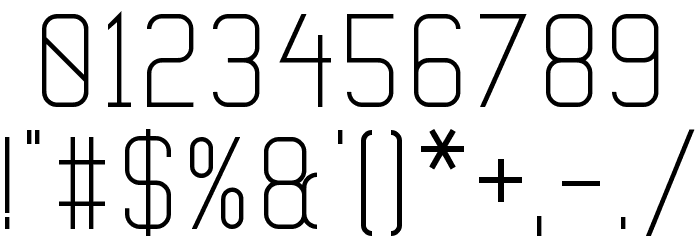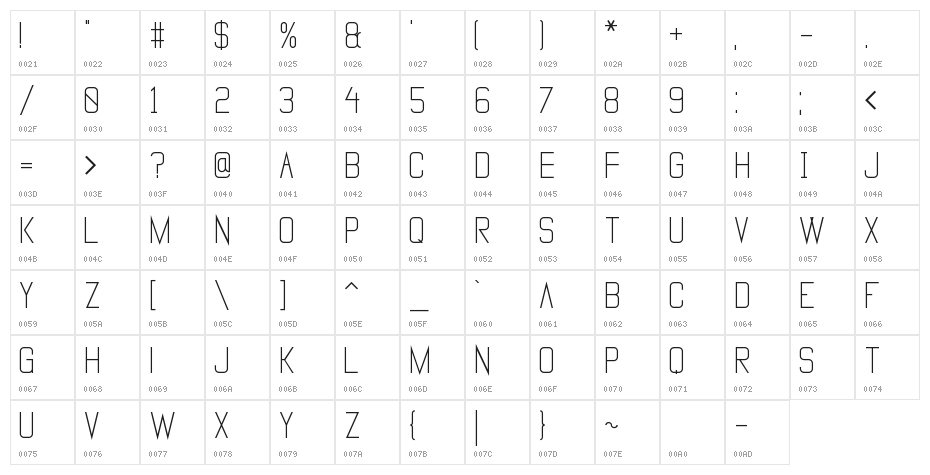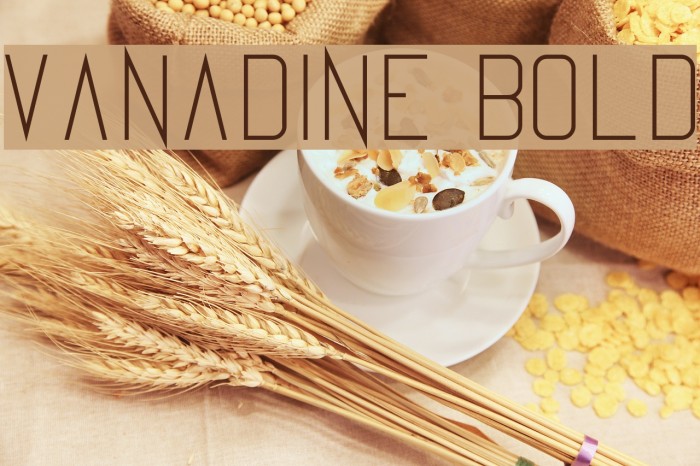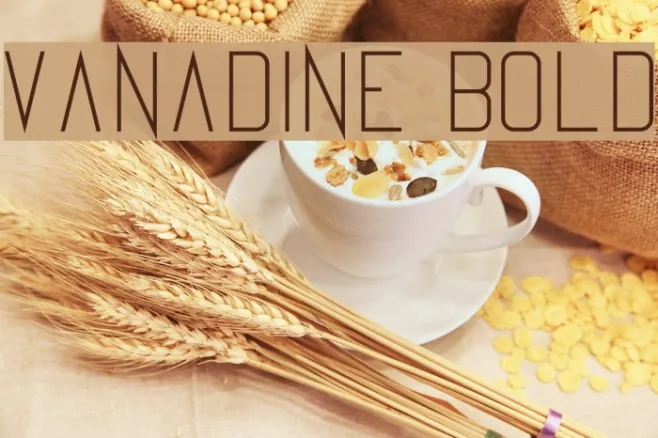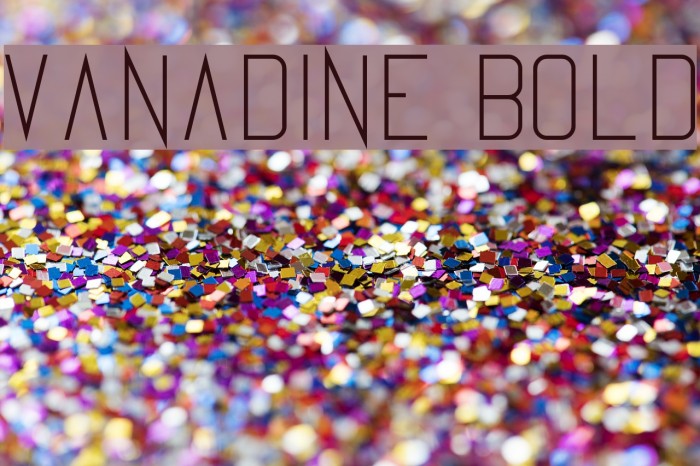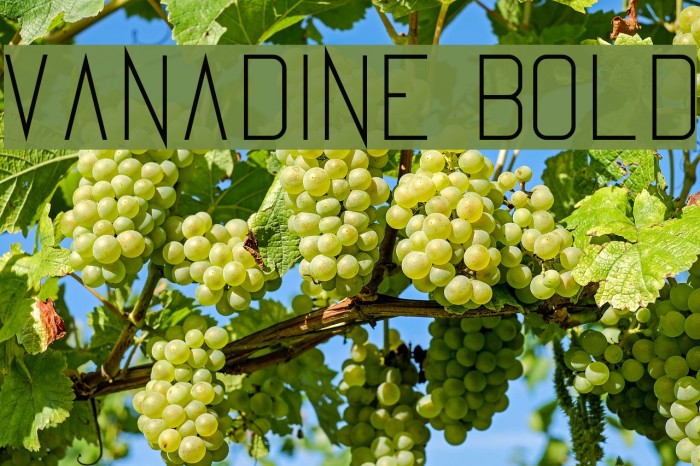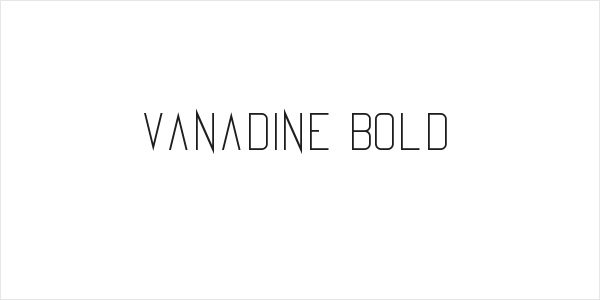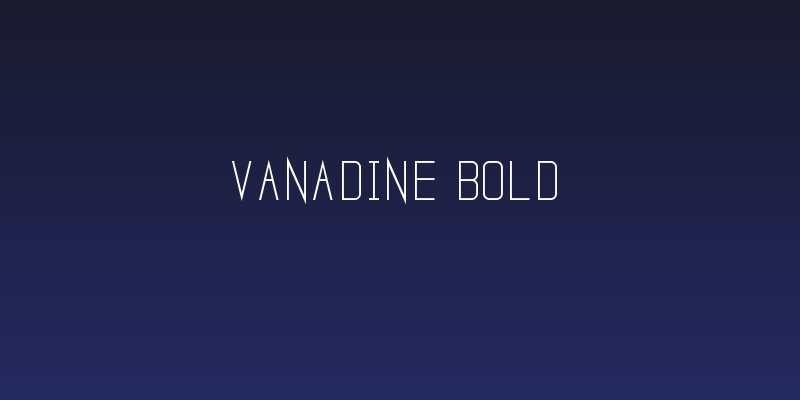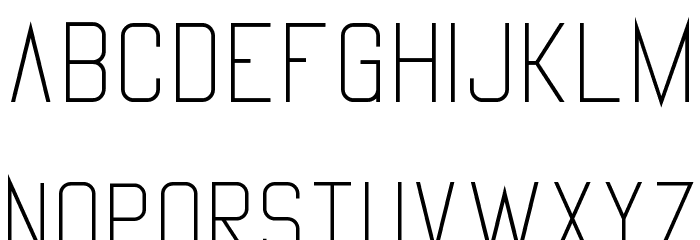
Vanadine Bold Font
Vanadine Bold Description
This font features a modern, geometric design with clean lines and a structured appearance. The characters are constructed with a consistent stroke width, giving it a uniform and balanced look. The uppercase letters are tall and slightly condensed, while the lowercase letters maintain a similar style, ensuring readability. The numerals are distinct and align well with the overall aesthetic. Special characters are designed to complement the main set, maintaining the font's cohesive style. This typeface is versatile, suitable for various design applications.
| Proposed Projects | Ideal for branding, headlines, posters, and digital interfaces where a modern and clean look is desired. |